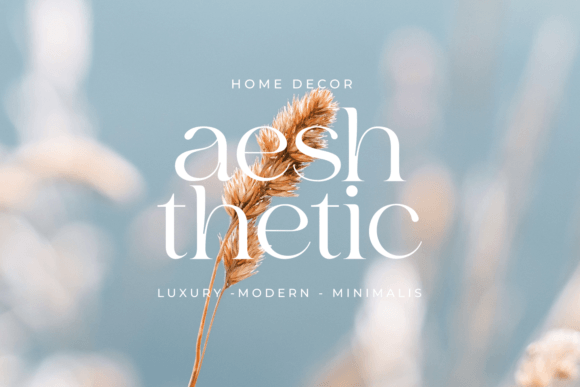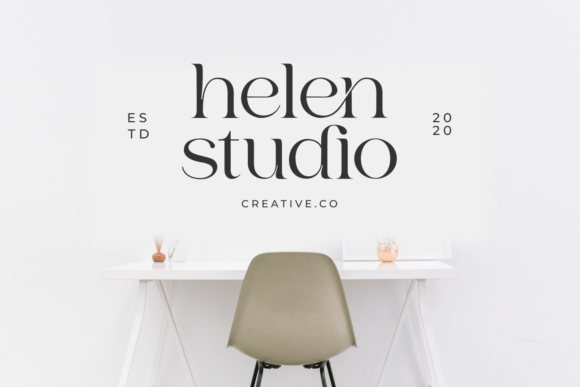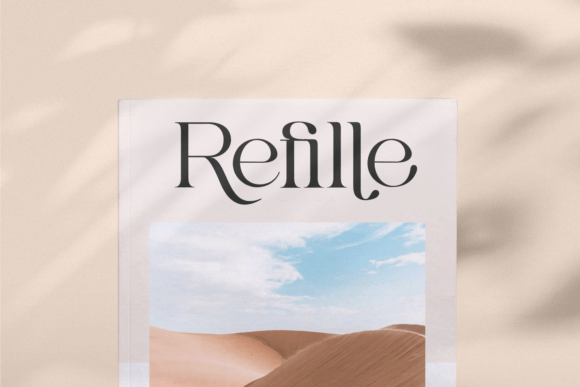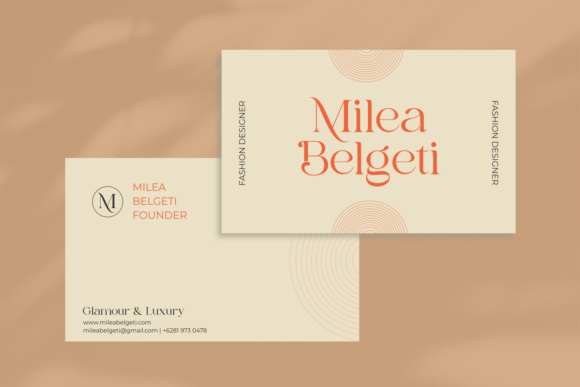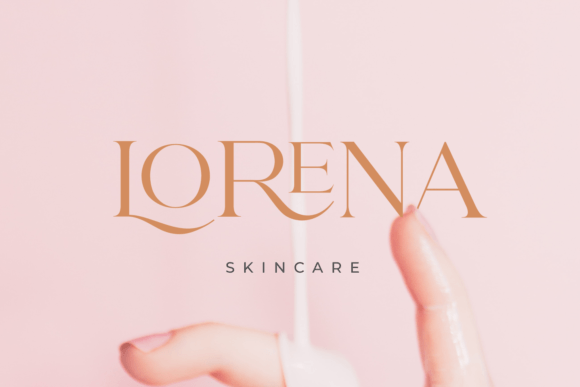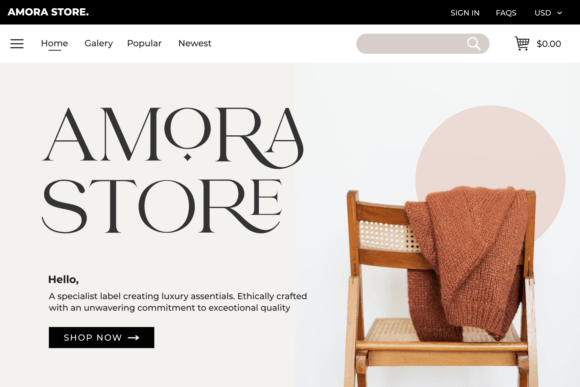
Blossoming with Elegance: The Bilgie Font
As designers, we’ve all been there – staring at a blank canvas, unsure of which font to choose for our next project. But what if I told you there’s a font that can elevate your design from ordinary to extraordinary? It’s the moment of truth when your creative vision comes together, and that’s where the Bilgie Font steps in.
This beautiful font is designed to add a touch of refinement to any design project, from wedding invitations to book covers. With its classic lines and ornate serifs, the Bilgie Font is a versatile choice that can be used in a variety of contexts to convey a sense of timelessness and tradition. Whether you’re a seasoned designer or just starting out, the Bilgie Font is a valuable addition to your toolkit.
Bilgie Font Key Features
- Unique Characteristics: Bilgie Font features a unique blend of modern and vintage elements, with a distinctive flair and elegance
Bilgie Font Review
Overall, I think Bilgie is a great addition to any designer’s toolkit. Here’s what I like about it:
- ✨ Beautiful, hand-drawn feel that’s perfect for creative and artistic projects.
- ✨ Highly customizable with a wide range of font styles and sizes.
- ✨ Supports a variety of languages, making it a great option for international projects.
- ⚠️ Not ideal for body text due to its decorative nature, which can make it difficult to read at larger sizes.
- ⚠️ May not be suitable for projects that require a more formal or professional tone.
- ⚠️ Can be quite heavy on system resources, which may cause issues with older machines.
Overall, I’d say Bilgie is a great choice for designers who want to add a touch of whimsy and creativity to their projects. While it may not be the best option for every project, it’s definitely worth having in your toolkit for those special occasions.
Tips for Getting the Most Out of Bilgie
For best results, use the Bilgie font in conjunction with bold or italic text to add emphasis.
Experiment with different font sizes to create visual hierarchy in your design.
The Bilgie font is ideal for use in headings, titles, and subheadings due to its unique and eye-catching design.
It’s also suitable for use in logos, branding materials, and other design elements where a distinctive font is desired.
Alternatives to Bilgie Font
Playfair Display is a high-end serif font that is perfect for creating elegant and luxurious designs. It features intricate details and a classic look that makes it ideal for use in branding, advertising, and editorial design. When to use: Use Playfair Display for high-end designs, such as luxury branding, fine art, and upscale publications. Comparison: Bilgie Font has a more modern and edgy feel, while Playfair Display is more traditional and sophisticated.
Great Vibes is a beautiful script font that is perfect for creating a sense of sophistication and elegance. It features a flowing and cursive design that makes it ideal for use in invitations, branding, and packaging design. When to use: Use Great Vibes for designs that require a touch of sophistication and elegance, such as wedding invitations, luxury branding, and high-end packaging. Comparison: Bilgie Font has a more modern and bold feel, while Great Vibes is more refined and elegant.
Merriweather is a classic serif font that is perfect for creating a sense of tradition and authority. It features a clean and elegant design that makes it ideal for use in editorial design, branding, and academic publications. When to use: Use Merriweather for designs that require a sense of tradition and authority, such as academic publications, editorial design, and corporate branding. Comparison: Bilgie Font has a more modern and edgy feel, while Merriweather is more traditional and conservative.
Q: What is the recommended font size for optimal readability with Bilgie Font?
The recommended font size for optimal readability with Bilgie Font is between 12 and 14 points. However, this may vary depending on the specific use case, screen resolution, and individual preferences. Experiment with different font sizes to find the most comfortable and readable setting for your needs.